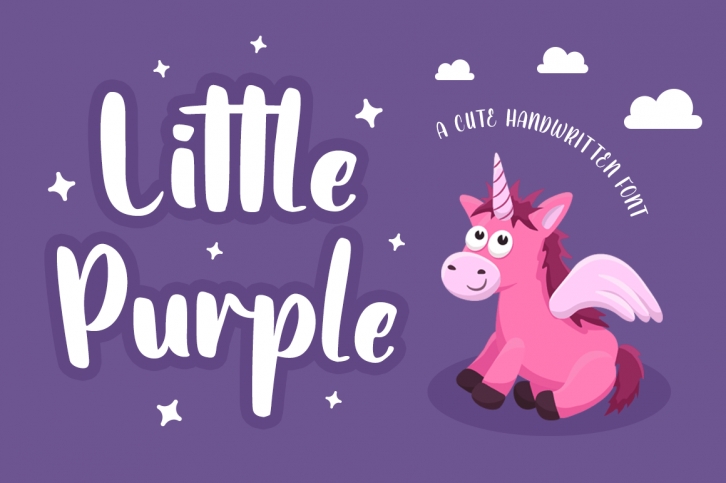
Although this font is handcrafted, you’ll love the wide range of styles and potential uses.
Whether you’re designing a luxurious wedding invitation or a lighthearted children’s book cover,
this high quality font will help your designs truly stand out.